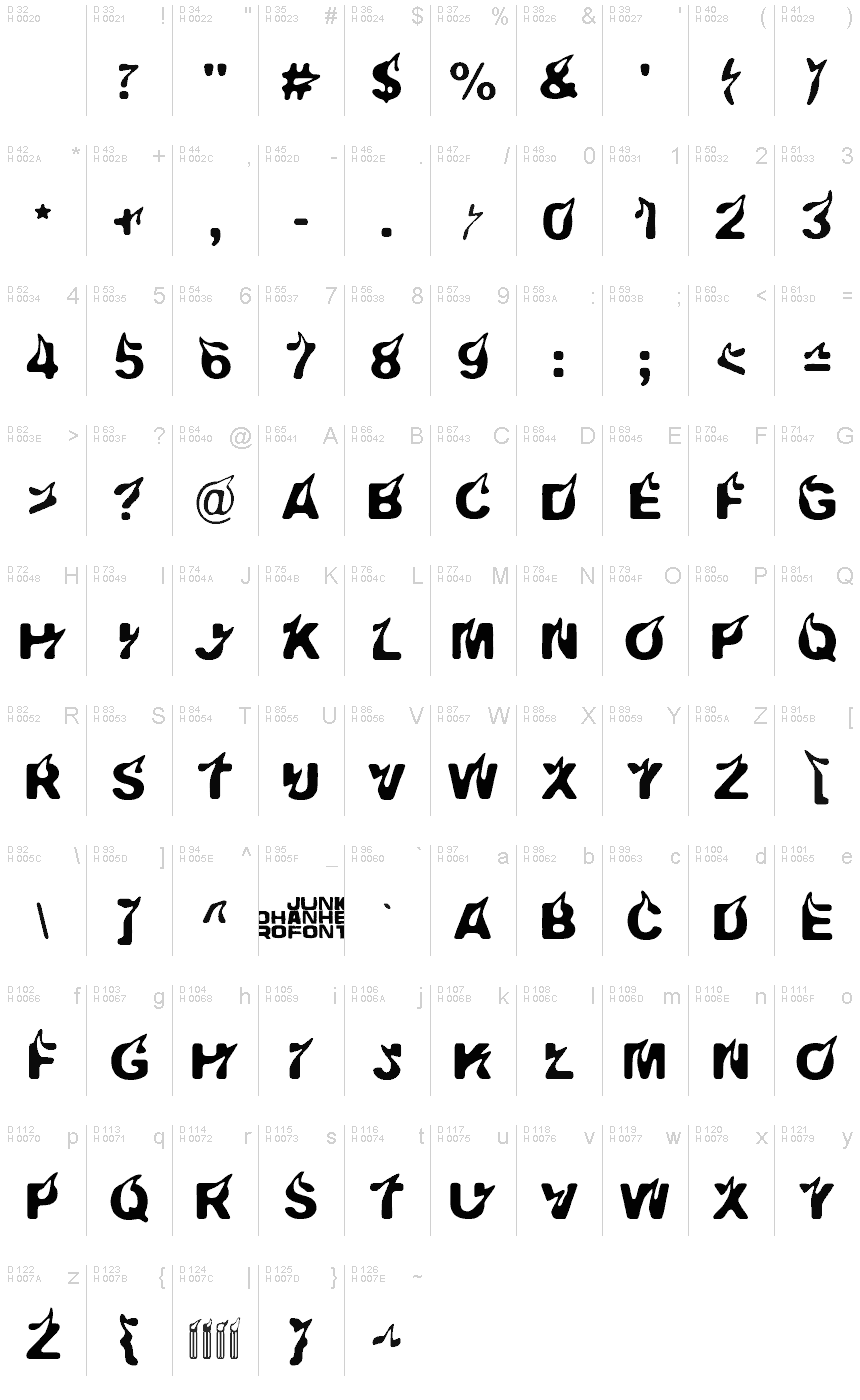
Pyromaani
Pyromaani is a boldly striking display font that commands attention with its fierce, handcrafted aesthetic. Designed by junkohanhero, this decorative typeface exudes an intense, fiery energy through its dramatic, jagged letterforms. The irregular, almost liquid-like strokes and pointed terminals create a sense of raw, unrestrained power, making Pyromaani an excellent choice for headings, logos, and other design elements that require a strong, impactful visual presence.
Its versatility lends itself well to a wide range of applications, from editorial layouts and event branding to product packaging and album covers, where it can add a captivating, memorable touch.